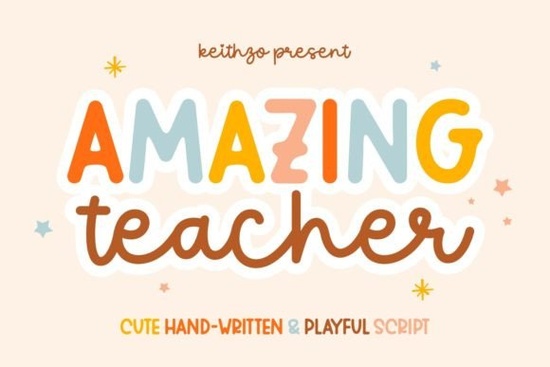
If you've ever wanted a typeface that looks like it came straight off a classroom chalkboard or a teacher's careful handwritten notes, the Amazing Teacher Font is worth a closer look. It brings that warm, familiar schoolroom vibe into your creative projects, whether you're designing a t-shirt for a teacher appreciation event or putting together printable classroom decor. The charm is in its personality friendly, approachable, and a little bit playful without trying too hard.
What Does the Amazing Teacher Font Look Like?
Think of how your favorite teacher used to write on the whiteboard neat but relaxed, with a natural flow that felt personal. That's exactly what this font captures. It mimics the rhythm and warmth of a teacher's handwriting, with letters that feel hand-drawn but still clean enough for legibility at different sizes.
The characters have a slightly rounded, organic quality. There's a freestyle energy to the strokes that gives your text life without sacrificing readability. This makes it a strong choice for projects where you want text to feel human rather than sterile.
Where Can You Use This Font?
One of the best things about Amazing Teacher is its versatility. Here are some popular ways designers and crafters put it to work:
- Print-on-demand products t-shirts, tote bags, hoodies, and hats for teacher-themed designs
- Greeting cards especially for teacher appreciation week, back-to-school season, or end-of-year thank-yous
- Blog graphics and social media posts headers, quote graphics, and promotional images
- Home and office decor memo boards, throw pillows, coffee mugs, and wall art
- Digital products classroom worksheets, planners, and educational resources
- Branding logos, business cards, and packaging for tutoring services or educational businesses
It works well across both personal and commercial projects, which is a big plus if you sell on platforms like Etsy or run a small creative business.
Does It Work Well With Cricut and Sublimation?
Absolutely, and this is where the font really shines in the crafting community. If you use a Cricut machine for cutting vinyl or creating iron-on designs, Amazing Teacher cuts cleanly because of its balanced letter spacing and smooth curves. You won't spend extra time weeding tiny details.
For sublimation projects think custom mugs, mousepads, or phone cases the font prints crisply at various sizes. Its bold personality comes through even on smaller surfaces, which isn't always the case with script-style typefaces.
Crafters who enjoy working with rhinestone templates might also appreciate how this font pairs with other specialty styles like the RS01 Cursiva rhinestone template font, giving you options when you want different moods in the same project.
How Does It Compare to Other Hand-Lettered Fonts?
If you're browsing for that hand-drawn feel, there are several good options depending on the exact style you need:
- The Sarphine font leans more elegant and flowing great for wedding invitations or upscale branding where you want a refined script look.
- The Jaglend font duo offers a pairing of script and serif styles, which is helpful when you need contrast between headlines and body text in a single design.
- A broader handwritten font collection can give you multiple styles to rotate through depending on the mood of each project.
What sets Amazing Teacher apart from these is its specific classroom personality. It doesn't try to be fancy or formal. It's unapologetically cheerful and down-to-earth, which makes it a natural fit for education-related designs, family-friendly products, and anything where you want the text to feel approachable.
Is It a Good Fit for Branding?
If your brand identity includes warmth, approachability, or a connection to education, this font can work beautifully in your logo, social media graphics, and marketing materials. Small businesses that serve families, schools, or the education market often struggle to find typefaces that feel professional without being cold. Amazing Teacher hits that middle ground polished enough for a business card, but friendly enough for a classroom poster.
Just keep in mind that display fonts like this work best for headlines, titles, and short phrases. For longer blocks of text, pair it with a clean sans-serif to keep everything readable.
Quick Checklist Before You Buy
Here's what to consider to make sure this font is the right fit for your next project:
- Test it at different sizes preview how it looks on both small items like business cards and larger surfaces like posters
- Pair it wisely combine with a simple secondary font for body text and longer copy
- Consider your audience it's ideal for education, family, and casual branding contexts
- Try it on mockups drop it onto product templates before committing to a full design